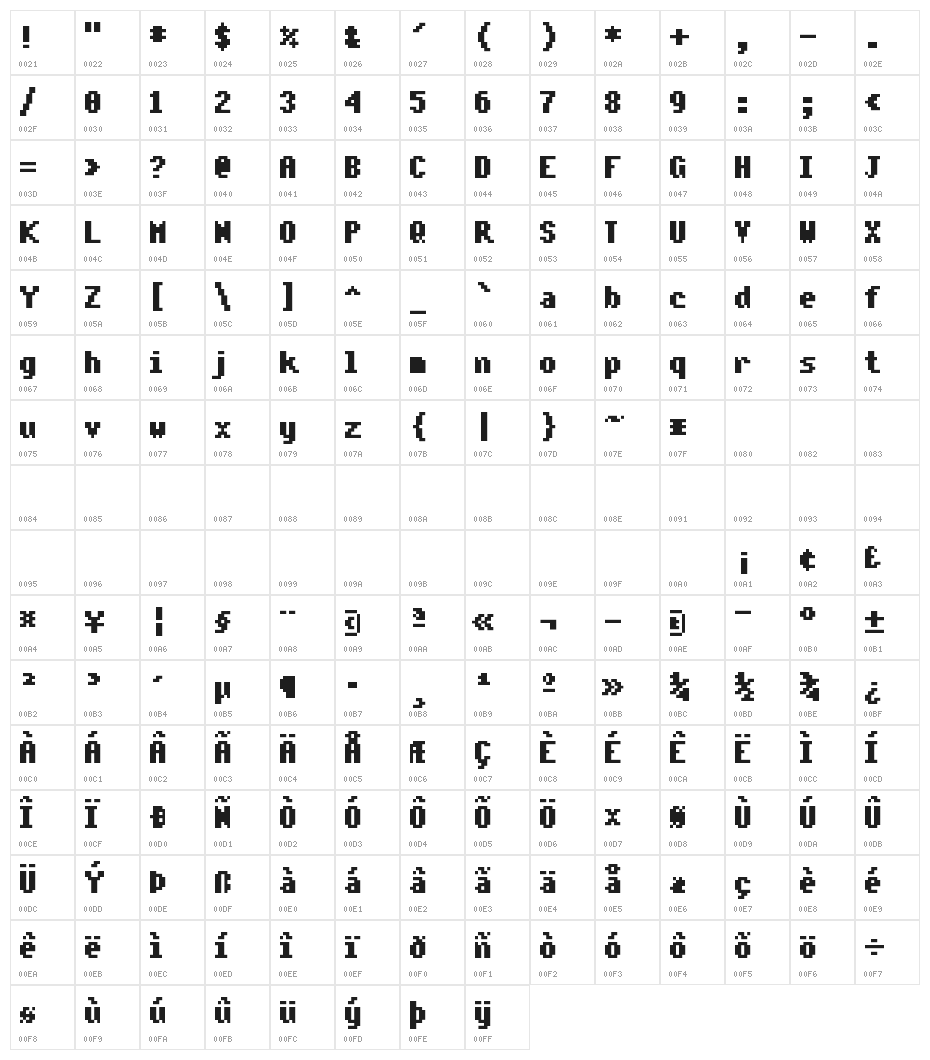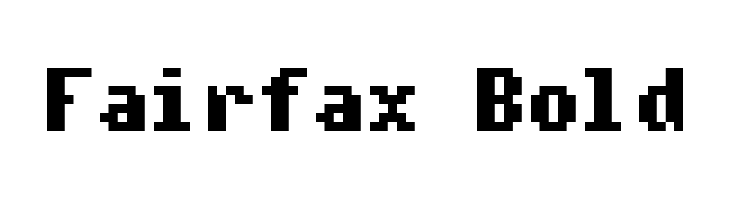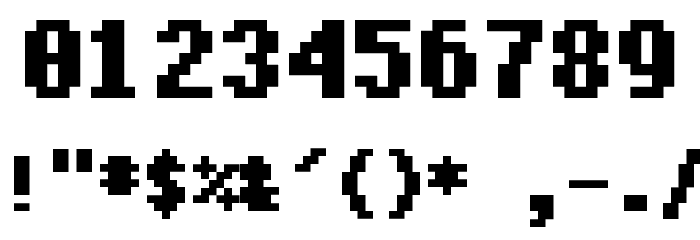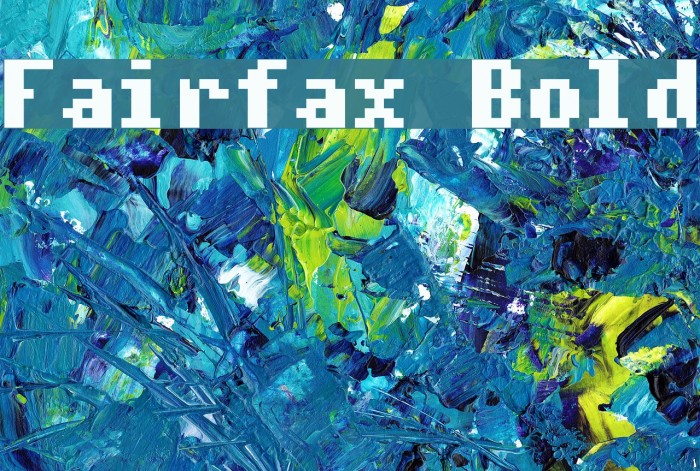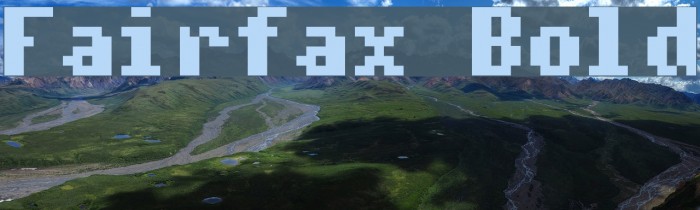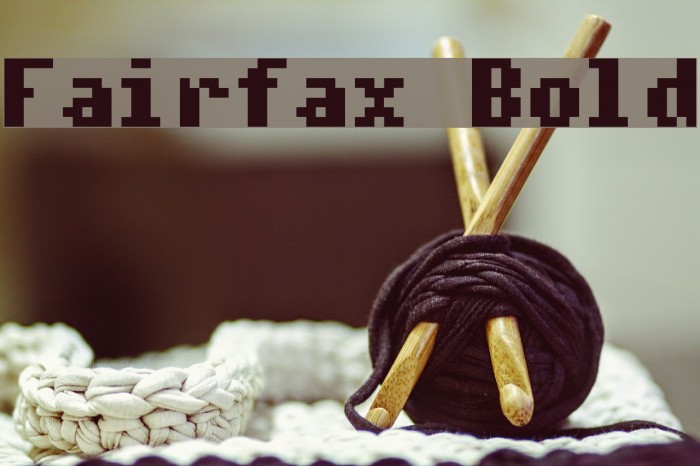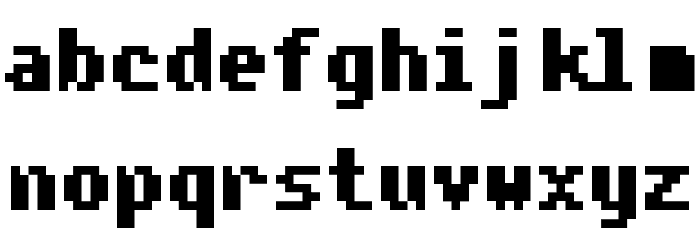
Fairfax Bold Font
Fairfax Bold Description
This font features a bold, pixelated style reminiscent of early digital displays and retro video games. Its blocky, geometric shapes create a strong visual impact, making it highly legible even at smaller sizes. The uniformity of the characters gives it a monospaced appearance, although it is not strictly monospaced. The uppercase and lowercase letters maintain a consistent height, enhancing its structured and orderly look. The numerals and special characters are designed with the same pixelated aesthetic, ensuring a cohesive appearance across all text elements. This font's distinct style is ideal for projects that aim to evoke nostalgia or a digital, tech-inspired theme.
| Proposed Projects | Ideal for video game design, tech-themed posters, digital art projects, and retro-inspired branding. |